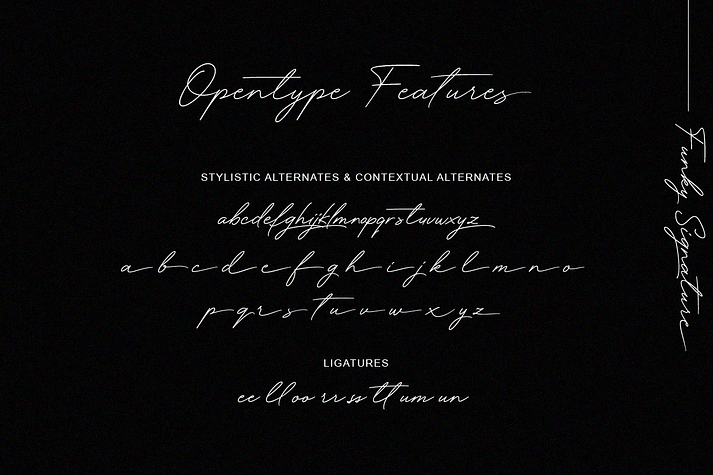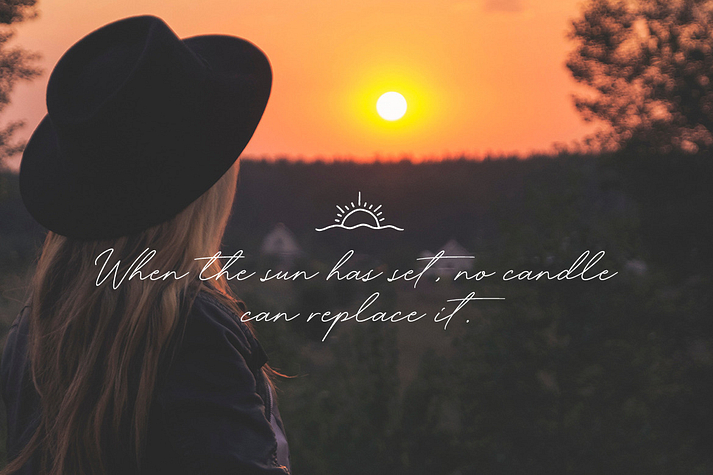
Funky Signature
Funky Signature is a font family. This typeface has two styles and was published by Ef Studio.
Funky Signature is a handwritten signature script with a natural flow in the 80s style, perfect for personal branding, red wine labels, vodka labels, packaging, stationery, invitations, business cards, movie cover, and advertising.
Funky Signature is equipped with many additional features that allow you to customize your text. You will get a complete set of uppercase and lowercase, multilingual, punctuation, ligatures, stylistic alternates a-z, hand drawn extras that you can match to create logos and contextual alternates that give you experience like the original writing.